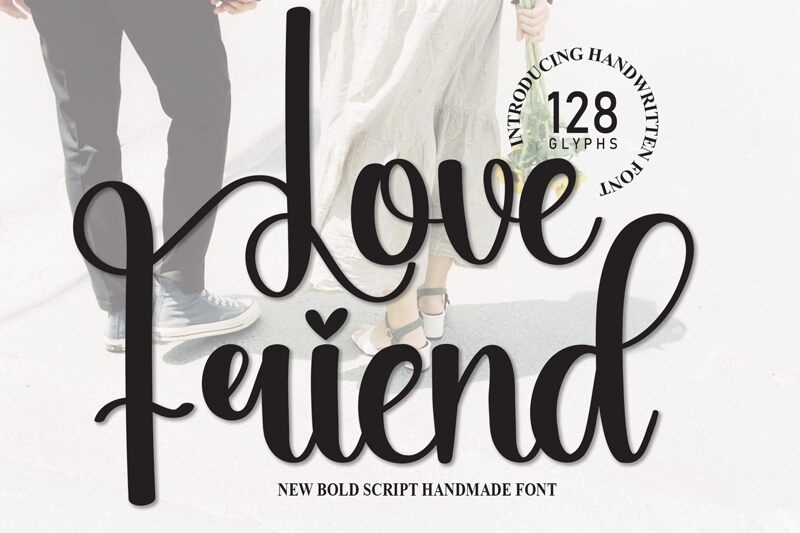
Love Friend
Love Friend, designed by Scratchones, is a font that exudes personality and warmth. With its handwritten style, this typeface carries the intimacy of a personal note, making every character look as though it was penned with care. The fluidity of its strokes and the playful loops give it a charming and affectionate quality that's both inviting and expressive.
This delightful font is perfect for projects that require a touch of personal connection—think wedding invitations, greeting cards, or branding for boutique businesses aiming to convey a handcrafted feel. Its aesthetic appeal lies in its ability to mimic the nuances of genuine handwriting while maintaining legibility and elegance. Love Friend stands out for bringing an authentic human touch to digital design spaces.